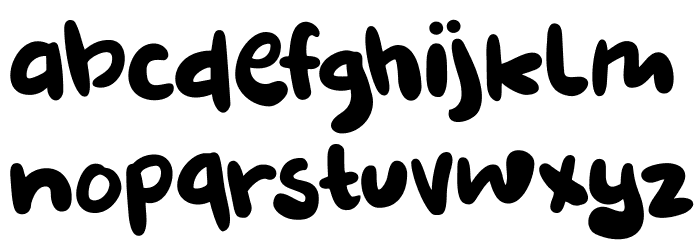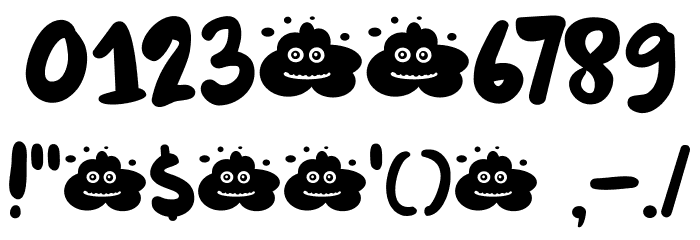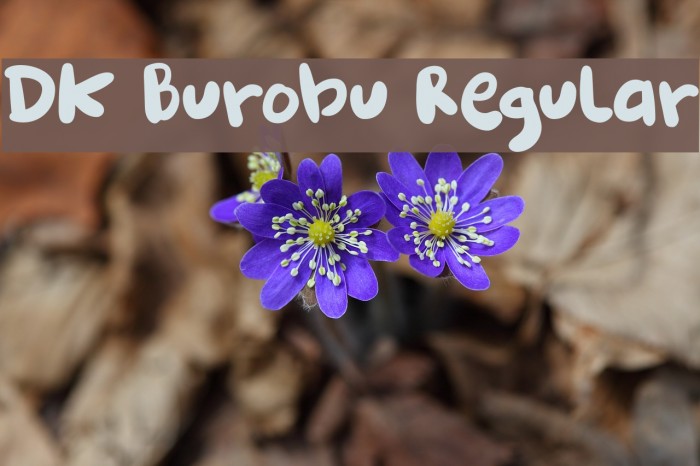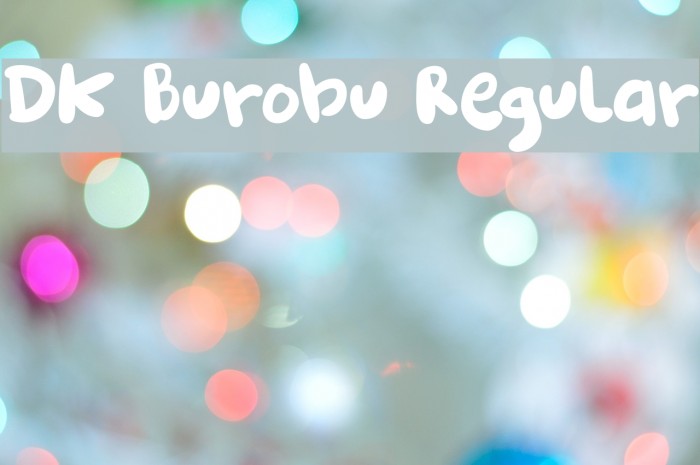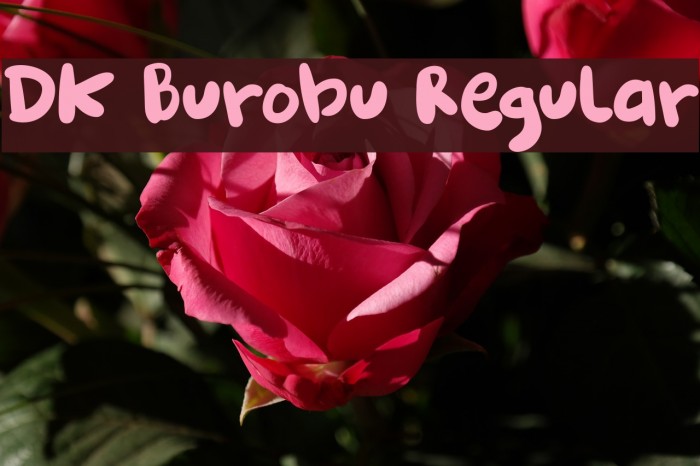
DK Burobu Regular Font
This playful and bold font features a bubbly and rounded style that exudes a sense of fun and whimsy. The characters are thick and have a consistent weight throughout, giving them a strong presence on the page. The uppercase and lowercase letters maintain a uniformity in their rounded shapes, while the numbers and special characters include unique, playful elements that add character and charm. This font's design is reminiscent of hand-drawn lettering, making it perfect for projects that require a touch of creativity and personality.
A playful, bold font with rounded, bubbly characters and a whimsical style.
- Proposed Projects: Ideal for children's books, playful branding, party invitations, and creative posters.
- Overall Style: Playful, Whimsical